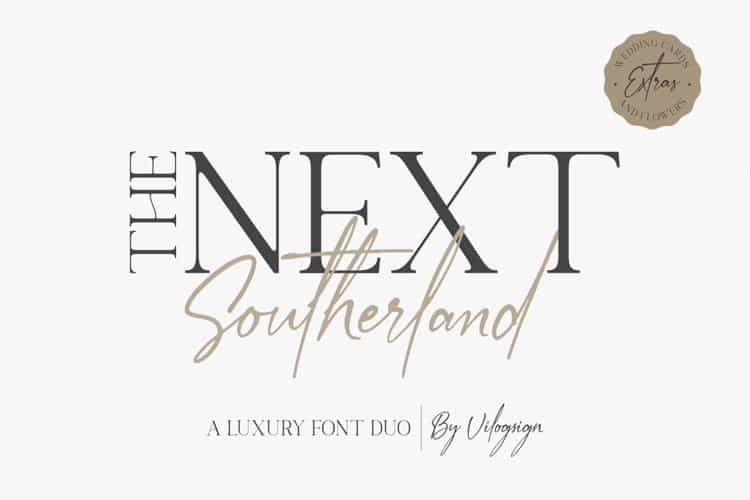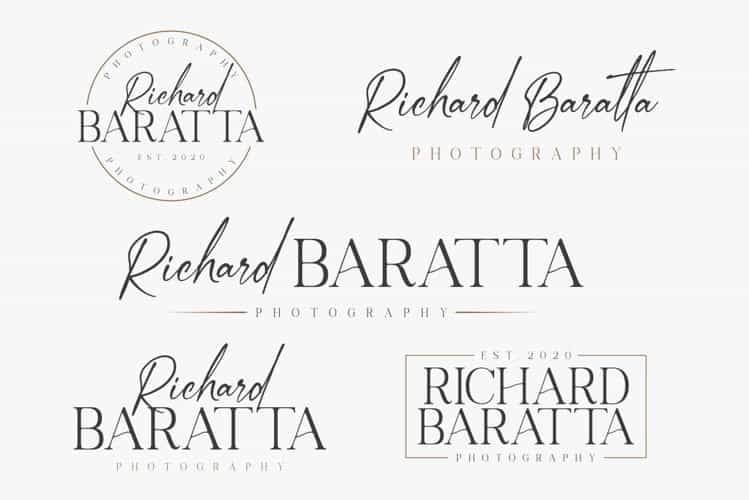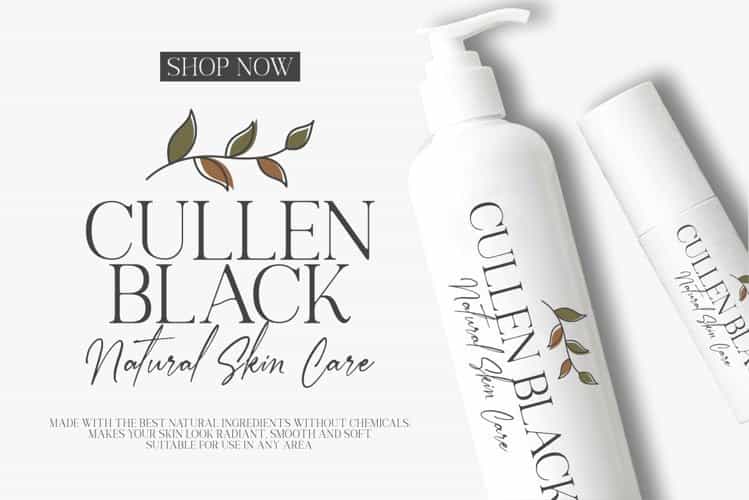
Discover The Next Southerland Font Duo, part of the Handwritten Serif collection—a versatile and unique font perfect for adding a personal touch to your projects. Download it for free and enjoy crafting designs with style, from invitations to social media posts. This font is available exclusively for personal use, giving you the freedom to create without limits. Unlock your creativity with The Next Southerland Font Duo today!
This Next Southerland is a fresh, modern handwritten script and luxurious serif font duo. The duo font is comprised of scripts that are completely handwritten that include ligatures, as well as an elegant serif font for uppercase which allows you to design unique designs that fit your requirements. Modern rustic, textured, script typeface with lowercase letters and 30 ligatures that will meet your requirements.